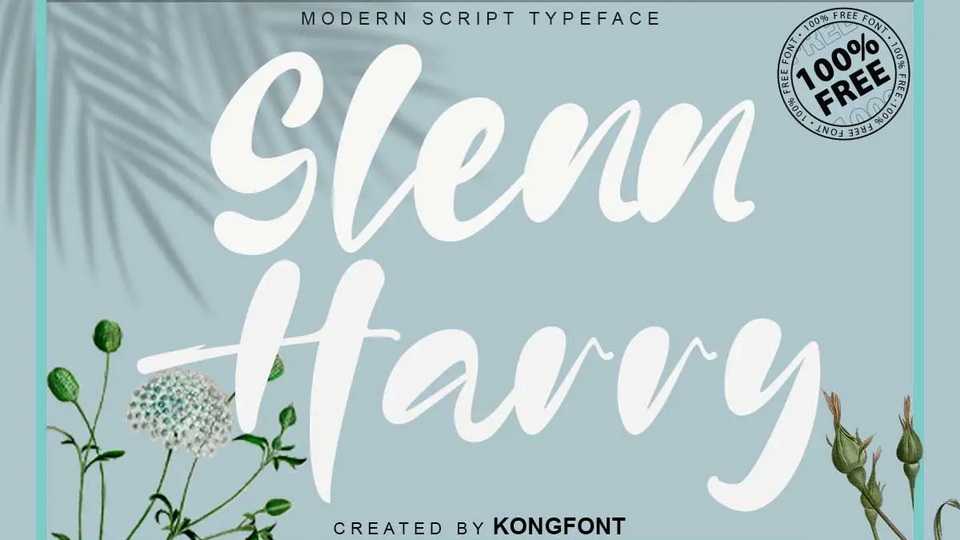
Download Glenn Harry font, a trendy handwritten typeface with interesting curves. Glenn Harry is modern and ideal for any kind of merchandise, web designs, letters, or invitations.
Designer: Kong Font Studio